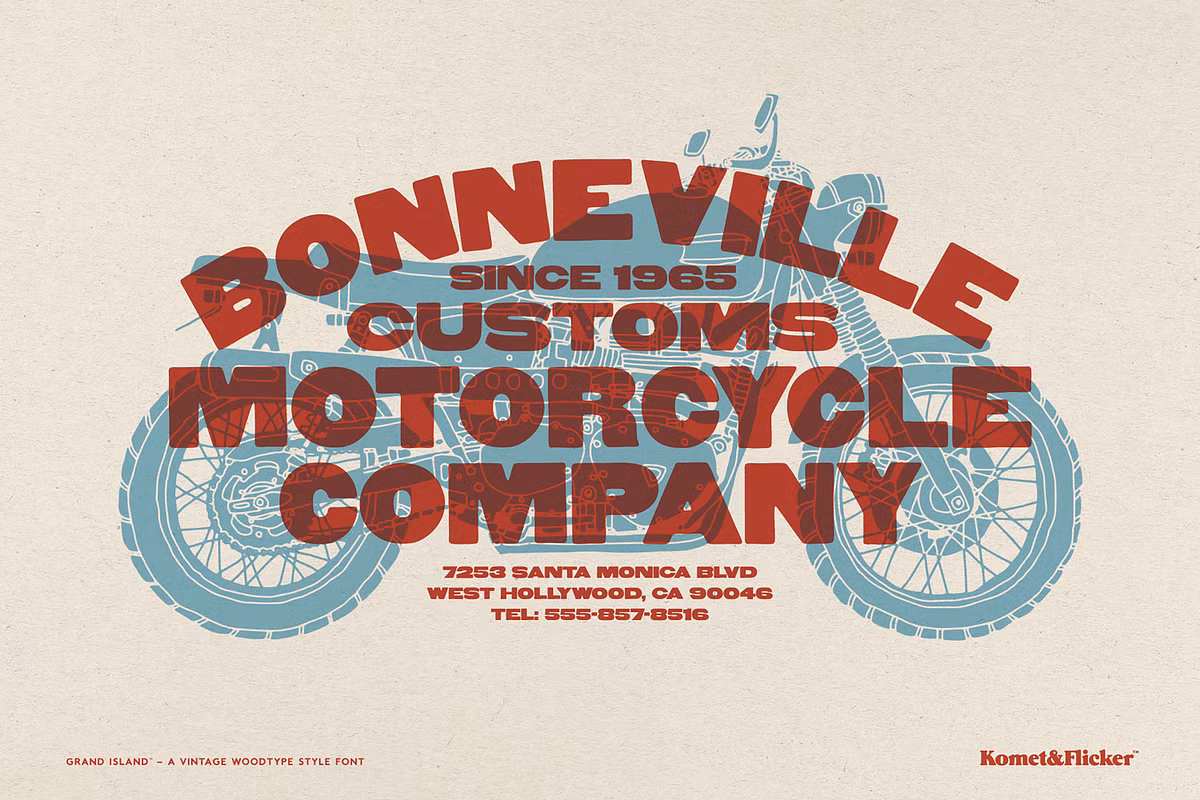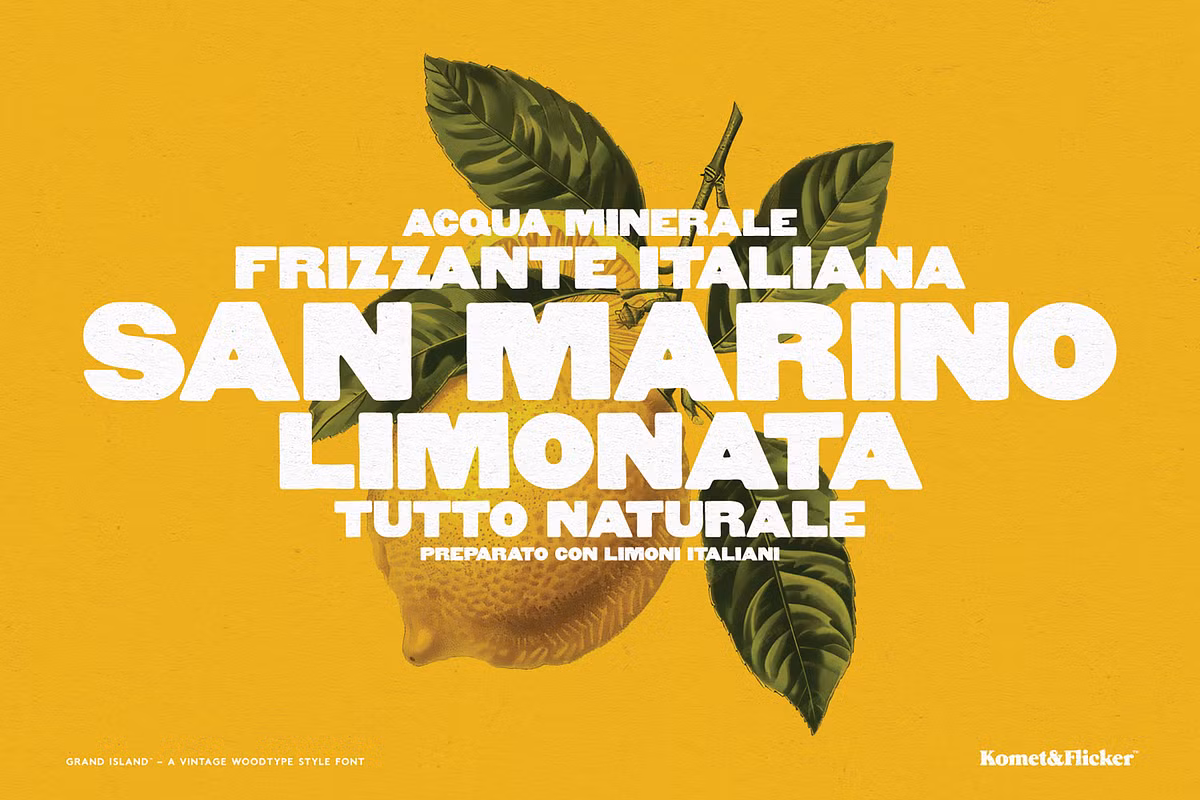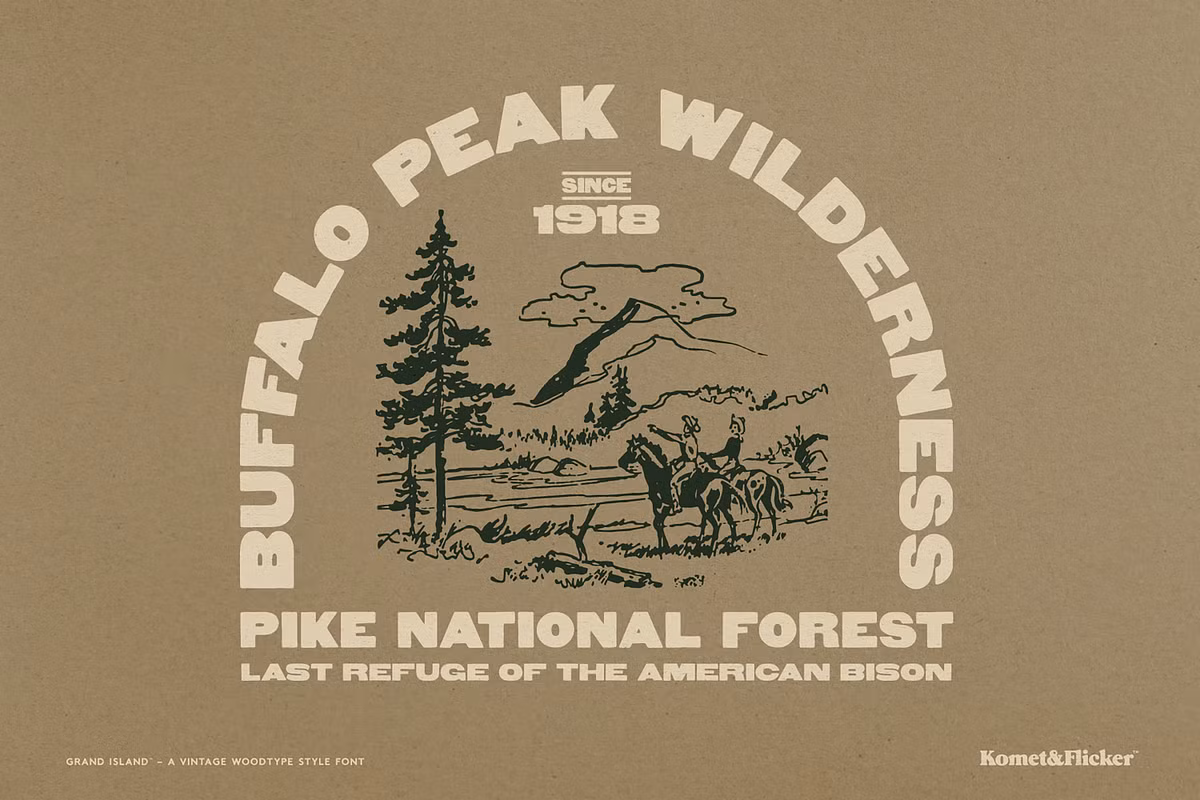
Grand Island: Vintage-Inspired Woodtype Font for Timeless Design
Grand Island - A Woodtype Font
Grand Island: Vintage-Inspired Woodtype Font for Timeless Design
Introduction to Grand Island
Grand Island is a really cool old-style font that looks like it was made a long time ago. It’s great for designers who want to add some classic charm to their work. You can use it for lots of things like posters, logos, packaging, and signs. It’s got a lot of character and looks like it was printed on old machines, which makes it really special. This font is perfect for anyone who wants to make their designs look unique and nostalgic. It’s like a blast from the past, but still works really well for modern projects. Whether you’re making something big and bold or small and simple, Grand Island is a great choice. It’s a versatile font that can be used in many different ways, and it’s sure to add a touch of timeless elegance to any design.
Vintage-inspired woodtype font example
Example of Grand Island font style
Design Style of Grand Island
The Grand Island design takes its cue from the fascinating past of wood type letterpress printing, a technique that was all the rage from the late 1800s onwards. This style of printing has a certain charm to it, and the font aims to capture that essence. It’s a beautiful mix of being bold and elegant at the same time, which makes it stand out in any setting. If you’re someone who loves the classic look and feel of old-fashioned printing, and wants to bring a sense of comfort and nostalgia to your work, then this font is perfect for you. The vintage vibe is unmistakable, and it’s great for anyone who appreciates the attention to detail and craftsmanship that went into traditional printing methods.
Grand Island is a special font that comes with two different personalities. The big letters are strong and confident, while the small letters are playful and friendly. This means you can use it to create designs that feel warm and old-fashioned, or energetic and daring, all while looking like they belong together. It’s like having two fonts in one, giving you the freedom to express yourself in different ways.
Character Sets and Glyphs
What makes Grand Island really special is the huge range of characters it has. You get the whole alphabet in uppercase, in two different styles, so you can mix and match to create some really cool and unique looks. Plus, it’s got some extra characters that are used in European languages, which means it’s a great choice if you need to write in those languages too. This makes it a pretty versatile font that can be used by people all over the world.
Character sets and glyphs of Grand Island font
Character sets and glyphs in Grand Island font
Grand Island has all the essentials, including numbers, punctuation, and special symbols, so you can create amazing designs with ease. It even comes with two types of pre-made fractions, which makes your text look more polished and professional.
What makes Grand Island really special is that it has its own set of custom connecting word glyphs – 11 of them, to be exact. These include pretty common words like “and”, “the”, “of”, and “with” that help link your text together. The best part is that these connecting words come in two different styles, so you can easily create text that flows nicely and looks like it all belongs together. This feature is really useful when you’re working on things like branding or editorial design, and it’s just one more thing that makes Grand Island a great choice.
Use Cases for Grand Island
Grand Island is really good for a lot of different things, so it can be used in many ways. Here are some examples of how people like to use it:
• Grand Island is a great place to make a big impression with posters and flyers. Its bold style is perfect for catching people’s attention right away.
• A well-designed logo can really make a company stand out. When it comes to creating a brand’s identity, a unique character can be a big help. It’s especially great for businesses that want to give off a vintage or retro vibe. This style can make a brand look classic and timeless, which can be really appealing to customers.
• Adding a special something to how products are wrapped up, Grand Island can make things look really good and show that they’re made with care, which is something that people notice and like.
• Signs for stores or events need to be easy to read and look good. This font is great for that because it’s clear and has a nice style. It helps get the message across while still being visually appealing.
• Editorial Design: Use Grand Island in magazines or books to create engaging headlines and captivating layouts that draw readers in.
Example of Grand Island in use for editorial design
Grand Island used in editorial design
Pairing Suggestions for Grand Island
When it comes to typography, pairing fonts can elevate your designs to the next level. Grand Island’s unique style creates numerous opportunities for effective combinations. Here are some pairing suggestions to consider:
• Grand Island & Sans-Serif Fonts: Pairing Grand Island with a clean, modern sans-serif font, like Helvetica or Futura, can create a striking contrast that balances vintage charm with contemporary aesthetics.
• If you want to give your designs a more playful feel, think about combining Grand Island with a fancy script font. This mix can make your invitations or greeting cards feel more personal and welcoming. It’s a great way to add some charm and make your messages feel more special.
• Grand Island & Serif Fonts: Using Grand Island alongside classic serif fonts like Times New Roman or Garamond can enhance readability in longer texts while still maintaining an engaging visual hierarchy.
You should check the licensing terms for Grand Island to make sure you’re using it right. This font is great for all kinds of designers and businesses because it has a special look that can work for many different brands. Whether you’re working on your own or as part of a big company, Grand Island can help you stand out. Just remember to read the fine print so you know what you can and can’t do with the font. It’s really versatile, so it’s worth taking a closer look.
You can easily get to all the features of Grand Island by going to the “Type → Glyphs” panel in Adobe Illustrator or “Type → Panels → Glyphs Panel” in Adobe Photoshop. This makes it simple to use all the font’s features, which helps your workflow and makes designing more fun. With this easy access, you can make the most of Grand Island and bring your creative ideas to life.
Grand Island is not just a font with a classic look, it’s a powerful tool that helps you add a touch of timeless style and bold personality to your work. What makes it special is its one-of-a-kind design, a wide range of characters, and the many ways you can use it. Whether you’re making a poster that feels nostalgic, a logo that grabs attention, or packaging that looks elegant, Grand Island gives you the freedom and visual appeal you need to make your designs really pop. So why not see what you can create with Grand Island and make your typography truly shine? It’s a must-have for any designer looking to add some extra flair to their projects.